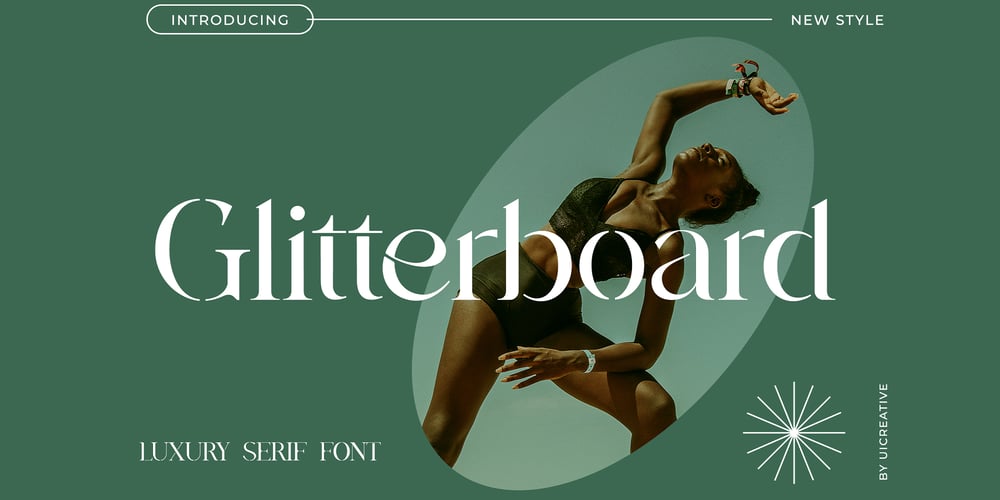
Glitterboard
Glitterboard font
Glitterboard Font Family was designed by Hero and published by UICreative. Glitterboard contains 1 styles and family package options. Introducing our new product the name Gliterboard Luxury Serif Font. Modern Serif font that feels beautiful classy, elegant, and modern. This font is perfectly suited for a wide variety of projects, such as signature, stationery, logo, wedding, typography quotes, magazine or book covers, website headers, clothing, branding, packaging design, and more. Also for fashion-related branding or editorial design and displays both masculine and feminine qualities.